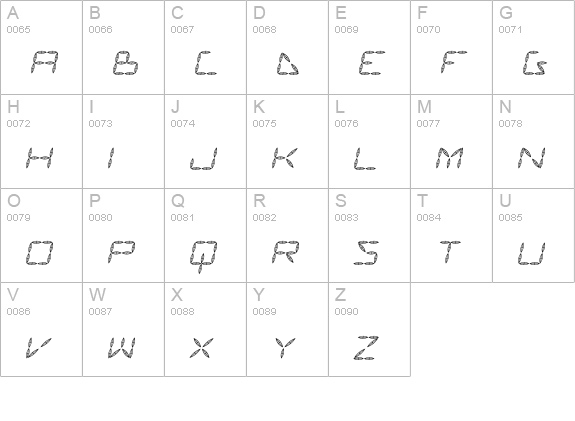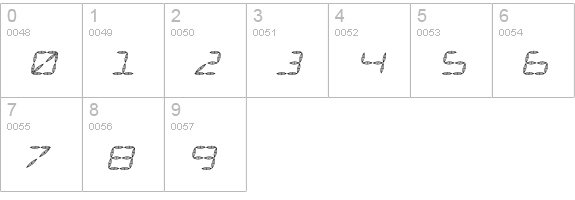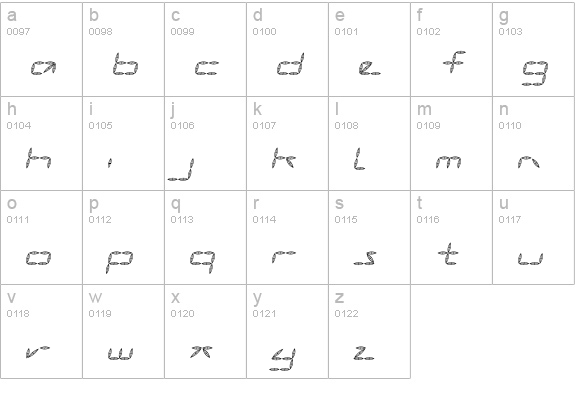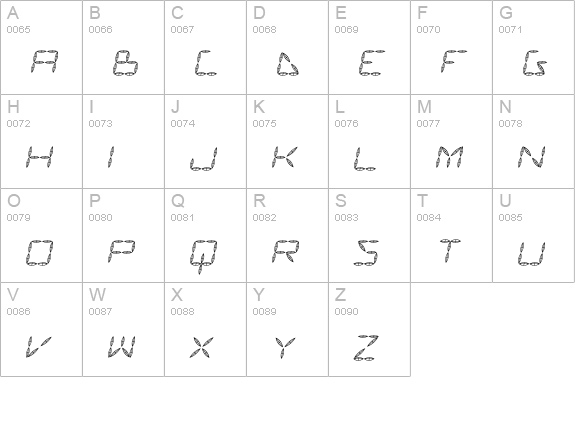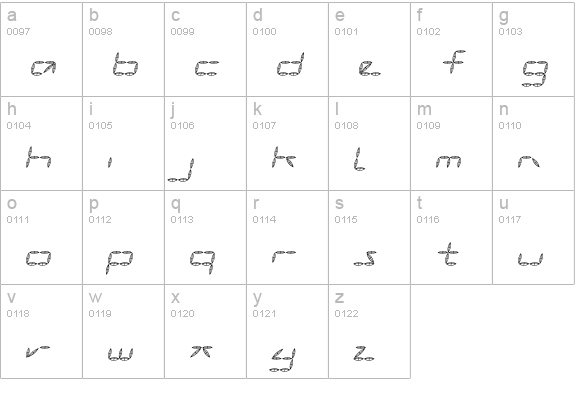
Vanguard III AOE Oblique is a distinctive, italic variant in the Vanguard typeface family \xE2\x80\x94 well suited to design and typography projects.
Vanguard III AOE Oblique font is a stunning typeface that exudes elegance and sophistication. Its sleek and slanted design adds a touch of modernity and uniqueness to any project it graces. With its sharp edges and bold letterforms, Vanguard III AOE Oblique font demands attention and makes a lasting impression. This font is perfect for various design purposes, including advertising, branding, headlines, and more. Its versatility allows it to seamlessly fit into both professional and creative projects, making it a must-have for designers and typographers alike. The best part is that Vanguard III AOE Oblique font is freely available to download at FontsMarket.com. This means that you can effortlessly enhance your designs without any cost. Embrace the beauty and power of Vanguard III AOE Oblique font, and let it elevate your creations to new heights. Download Vanguard III AOE Oblique font today and unleash your creativity with this exceptional and free typeface. FontsMarket.com is your go-to source for high-quality fonts, so don't miss out on this amazing opportunity to enhance your design arsenal.